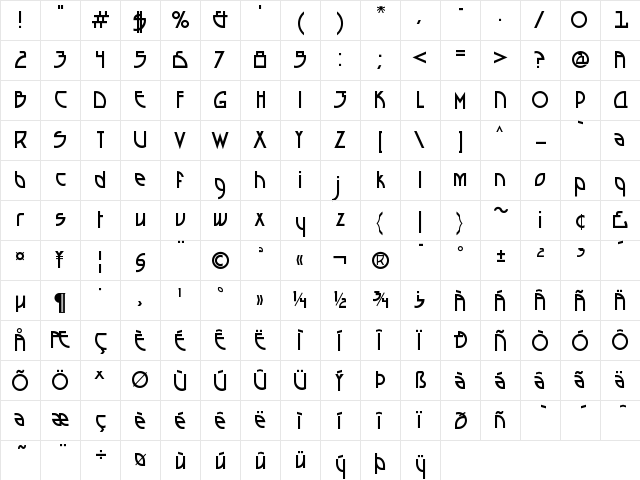
Seized Future A Regular
Design Context for Seized Future A Typeface
Seized Future A has a distinctly futuristic character, with geometric precision and clean angles that feel at home in technology, gaming, and sci-fi contexts.
Pro Tip: Use Seized Future A in combination with a neutral sans for body text. Let it define the brand voice in headlines while keeping reading comfortable elsewhere.